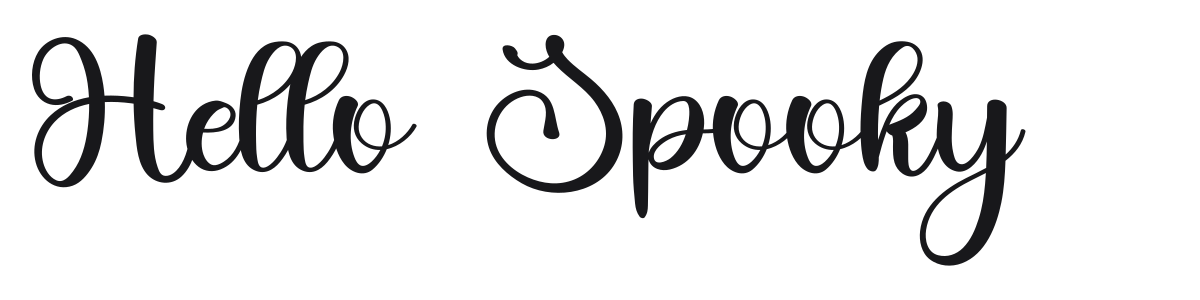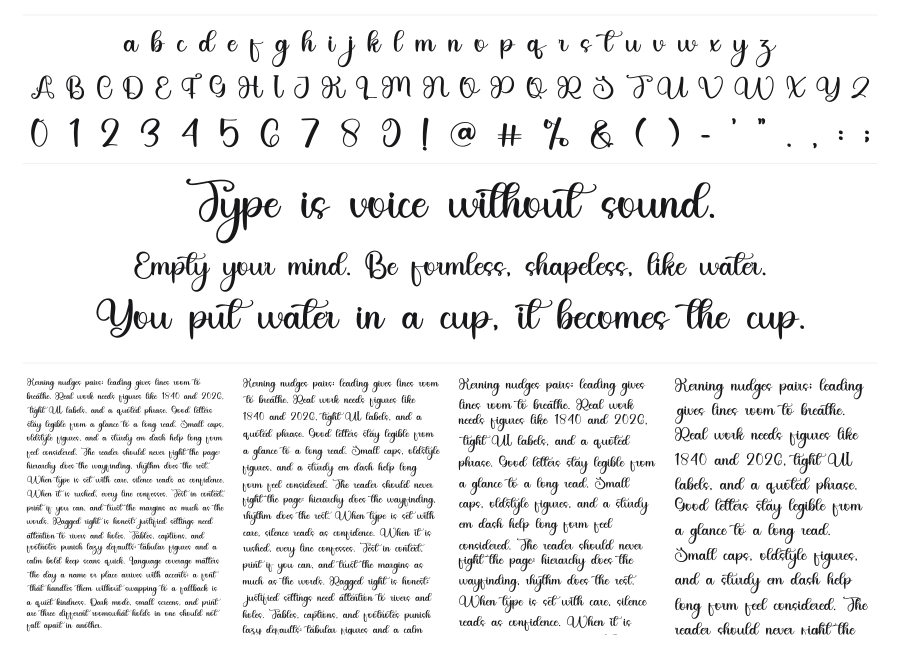
Hello Spooky
Hello Spooky is a flowing casual script with a bouncy baseline and looping swashes that give it a festive, handcrafted energy. The connected strokes and full round forms draw from modern calligraphy, sitting somewhere between a brush pen and a wedding invitation hand. It brings warmth and personality to seasonal branding, greeting cards, and display headlines.